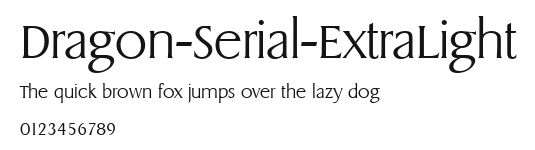
Dragon-Serial-ExtraLight Preview
• Font Name: Dragon-Serial-ExtraLight
• Full Font Name: Dragon-Serial-ExtraLight-Regular
• PostScript Name: Dragon-Serial-ExtraLight-Regular
About Dragon-Serial-ExtraLight.ttf
Dragon-Serial-ExtraLight.ttf is a modern, elegant sans-serif font designed for ultimate readability and visual harmony. Perfect for branding, headlines, web design, and print materials.